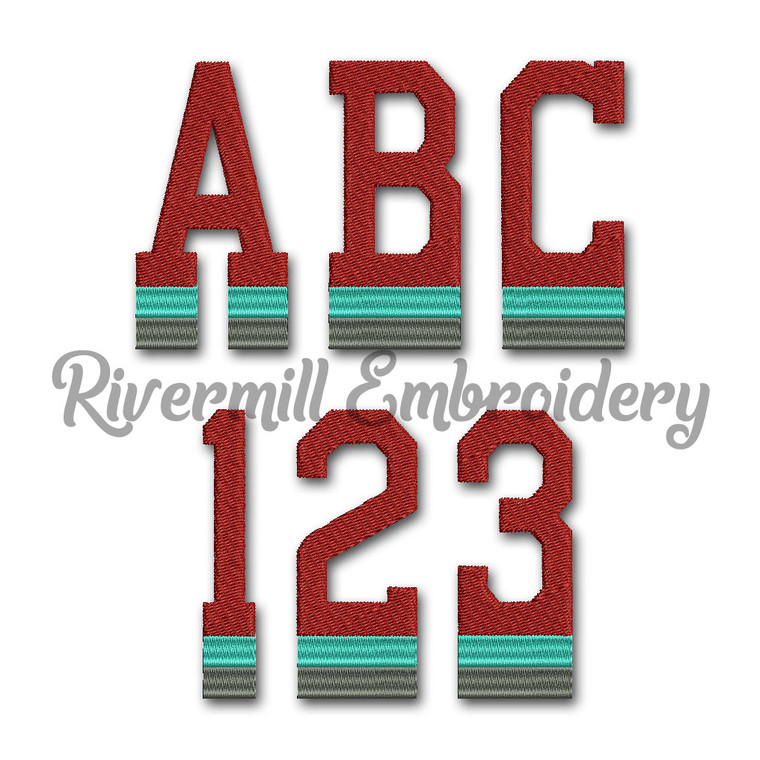
Large Stacks Machine Embroidery Font Alphabet
You get uppercase letters in 3 sizes:
2 inch
2 1/2 inch
3 inch
The letters in each size are fill stitched.  The bars underneath are satin stitched on the smallest size and a split satin stitch on the bigger sizes.